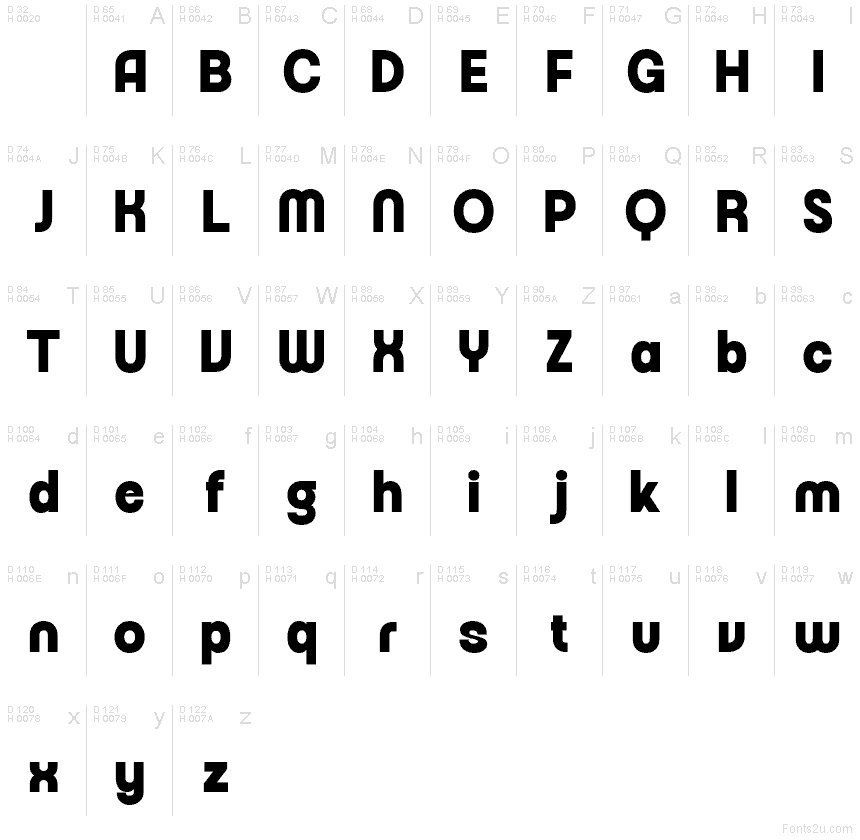
CS Maguire Regular Demo
CS Maguire font by Craft Supply Co. is a free bold retro display font. It stands out with pillowy, rounded forms and an even, low-contrast stroke that feels smooth and substantial. The high x-height and tight rhythm give headlines a friendly shove forward, while flat terminals and snug apertures add a distinctly 70s, soft-geometric vibe. There’s a pleasing “cush” to every curve that reads loud without shouting.
Using CS Maguire, headlines snap into place for vintage posters, café menus, bakery branding, beverage labels, album covers, and playful packaging. This free font rewards big sizes, where its chunky shapes and compact spacing create strong, rhythmic blocks of type. Pair it with a crisp grotesk or humanist sans for body copy, and add a touch of letterspacing to breathe in small subheads.